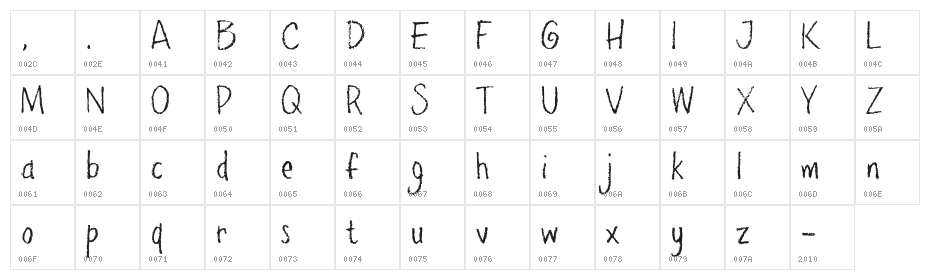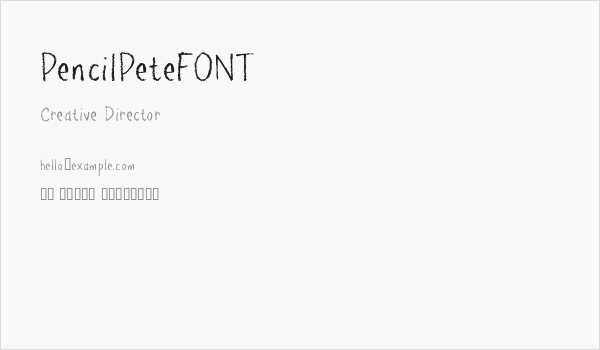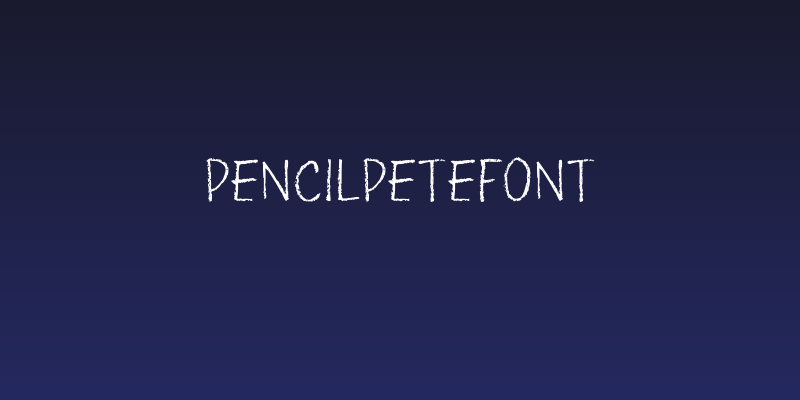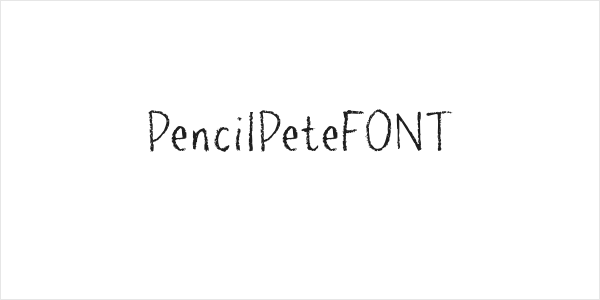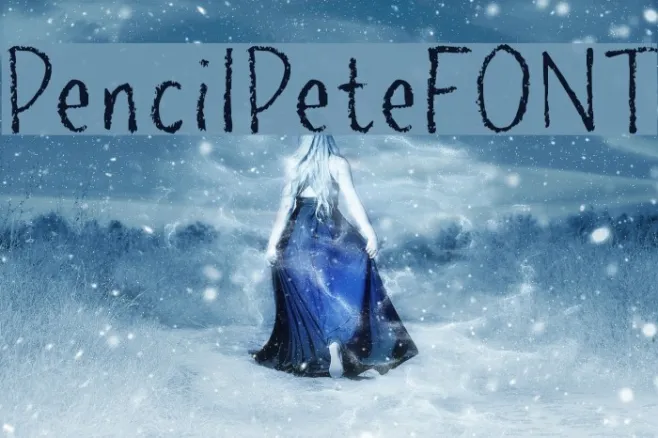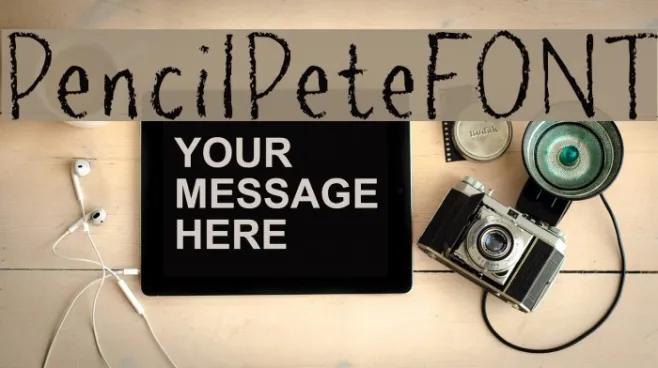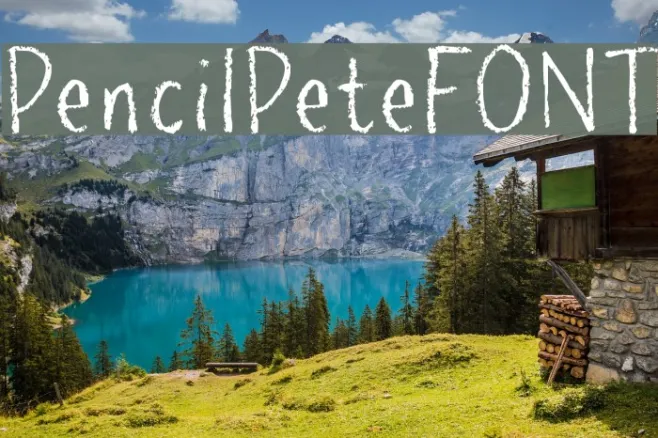
PencilPeteFONT Font
PencilPeteFONT Description
This font features a textured, hand-drawn style reminiscent of pencil sketches. The characters have a rough, organic appearance, with uneven edges and a playful, informal vibe. The uppercase and lowercase letters maintain a consistent style, with slight variations in stroke thickness that add to the hand-crafted feel. The font lacks numerals and special characters, focusing solely on alphabetic characters. Its unique, artistic quality makes it suitable for creative projects where a personal touch is desired.
| Use Case | Headlines, Artistic projects |
| Proposed Projects | Ideal for children's book illustrations, artistic posters, and creative branding projects. |